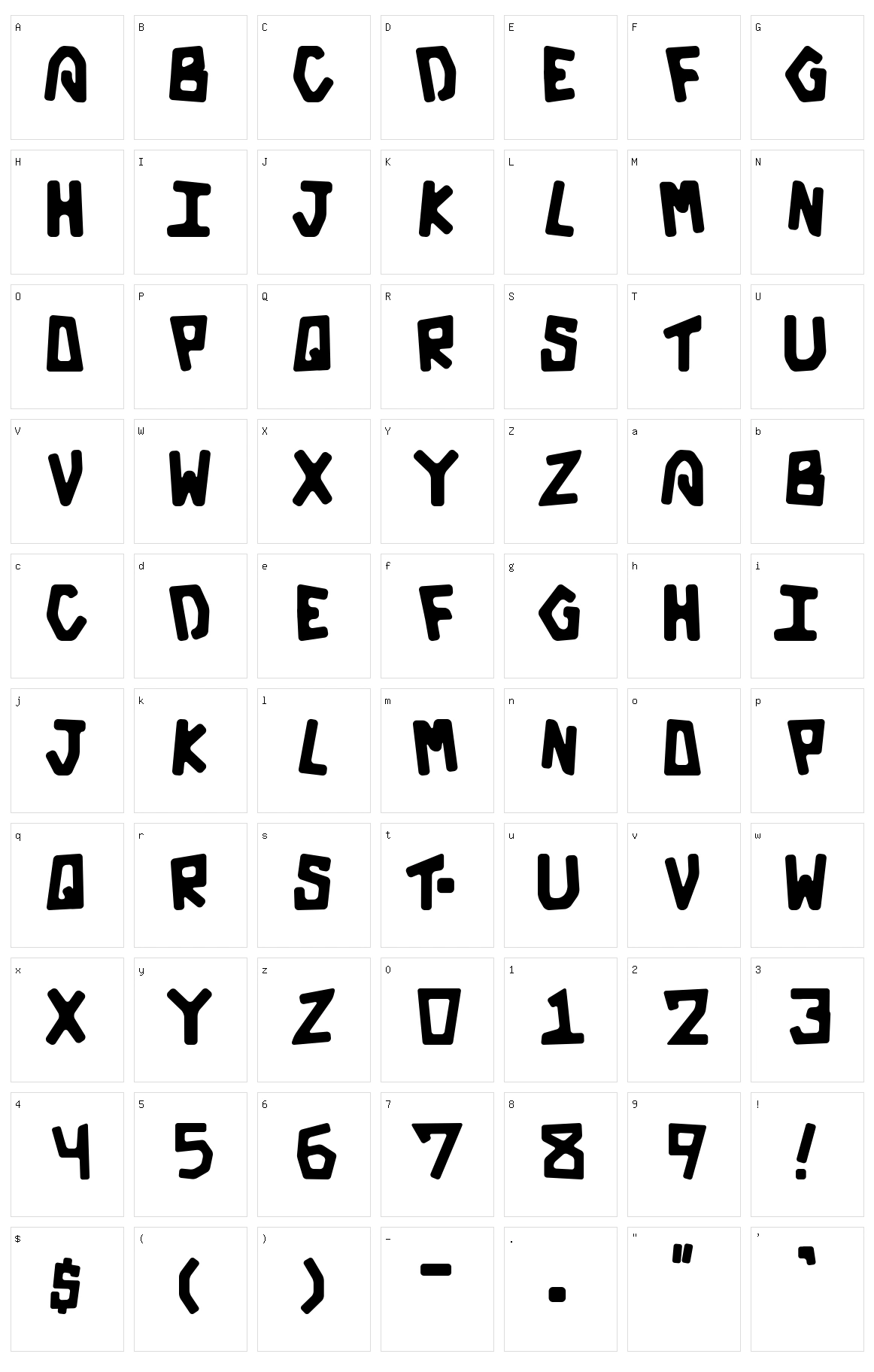
The free font Galactic is carefully designed by Case Sandberg, showcasing a thoughtful balance of creativity and usability and falls under the Cartoon font style. When you download the ZIP file, it contains only 8.99 KB of font files, making it lightweight and quick to download. Please review the license details below to understand permitted usage and distribution rights. If license information is not available, we recommend using this font for personal projects only or contacting the author directly for commercial usage permissions.